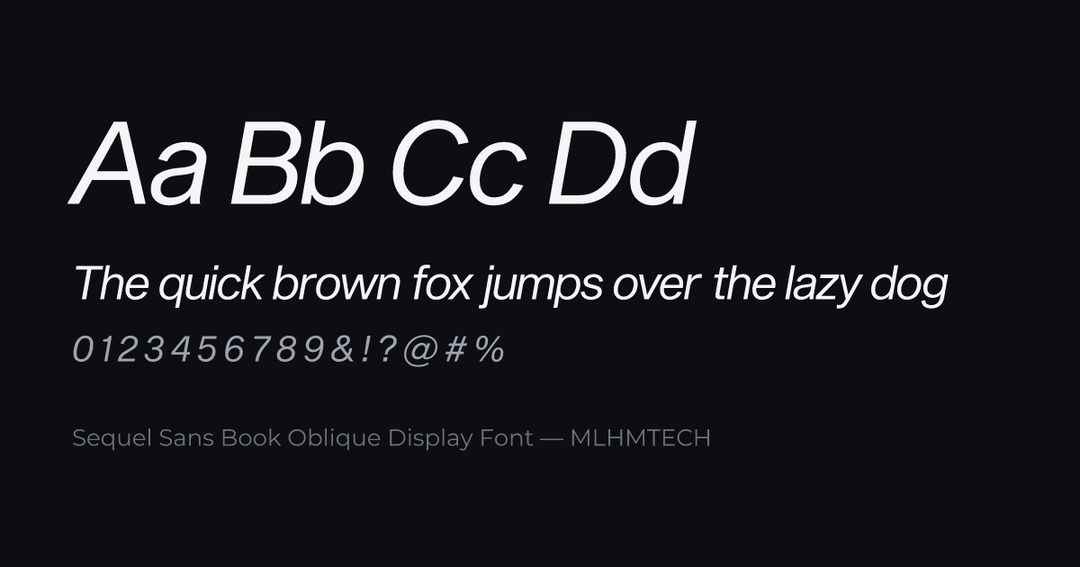
Sequel Sans Book Oblique Display Font
Sequel Sans Book Oblique is a clean, modern sans-serif font with a subtle slant. Ideal for display use in branding and editorial design.
Sequel Sans Book Oblique is a versatile geometric sans-serif typeface. Its oblique style adds a dynamic touch while maintaining legibility. Perfect for headlines, logos, and branding projects that require a contemporary feel.
This font is part of the Sequel Sans family, known for its clean lines and balanced proportions. The Book weight is ideal for body text at larger sizes, while the oblique angle provides emphasis without sacrificing readability.